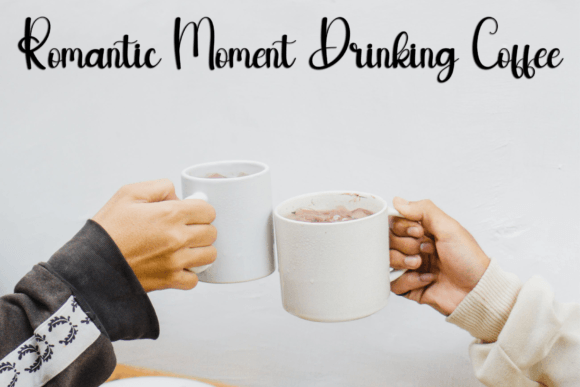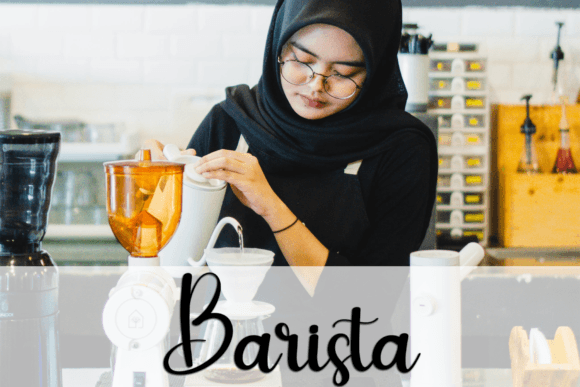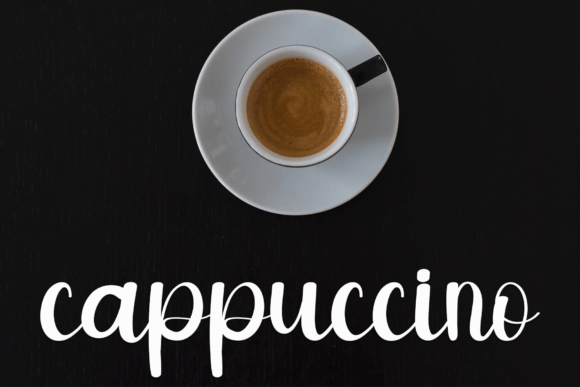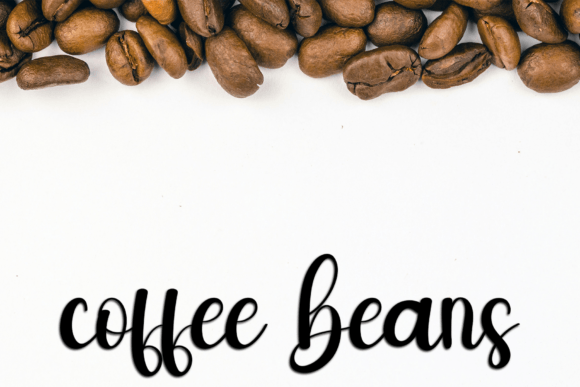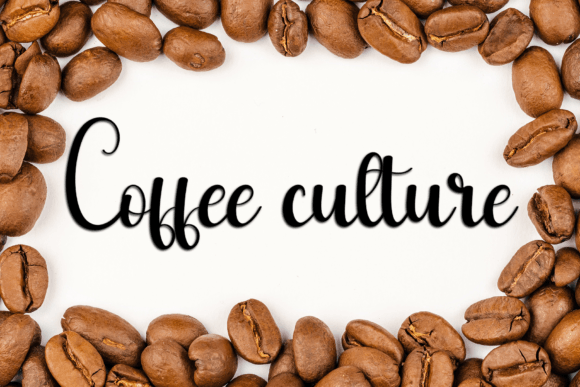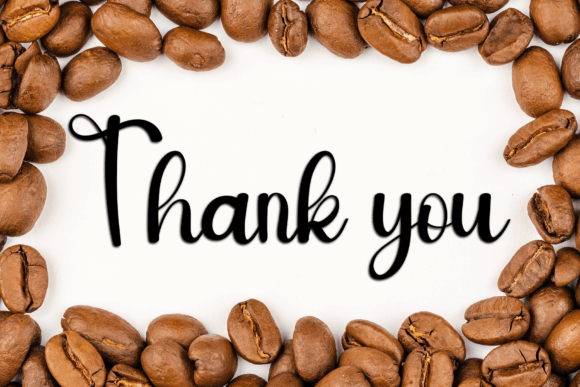
Coffee Font: The Ultimate Guide to Elevating Your Designs
Coffee is a cool, simple, and playful handwritten font that has been making waves in the design world. Incredibly versatile, this font fits a wide pool of designs, elevating them to the highest levels. Add this font to your favorite creative ideas, and notice how it makes them come alive!
What is Coffee Font?
Coffee Font is a modern, handwritten font that exudes a sense of playfulness and simplicity. Its unique charm lies in its effortless, cursive style that instantly adds a touch of personality to any design. Whether you’re a designer, crafty DIY enthusiast, or social media influencer, Coffee Font is an excellent addition to your typography arsenal.
Key Features of Coffee Font
- Playful and Whimsical: Coffee Font boasts a carefree, handwritten style that’s perfect for designs that require a dash of personality.
- Versatile: This font is incredibly adaptable, making it suitable for a wide range of designs, from branding and advertising to packaging and digital media.
- Easy to Read: Despite its playful nature, Coffee Font remains highly legible, ensuring your message is conveyed clearly and effectively.
- Highly Customizable: Coffee Font can be easily paired with other fonts, colors, and design elements to create a unique visual identity.
Use Cases for Coffee Font
Coffee Font’s versatility makes it an excellent choice for various design applications. Here are some inspiring use cases:
- Branding and Logo Design: Use Coffee Font to create a memorable logo or add a personal touch to your brand’s typography.
- Social Media Graphics: Elevate your social media presence with engaging graphics, quotes, and captions featuring Coffee Font.
- Packaging Design: Add a touch of whimsy to your product packaging with Coffee Font, making your brand stand out on store shelves.
- Digital Media: Use Coffee Font in your website headers, blog posts, or email newsletters to inject a dose of personality into your digital content.
Tips for Using Coffee Font Effectively
To get the most out of Coffee Font, follow these expert tips:
- Pair with Contrasting Fonts: Combine Coffee Font with a clean, sans-serif font to create visual interest and hierarchy.
- Experiment with Colors: Play with different color schemes to find the perfect match for your design and brand.
- Use it Sparingly: Balance Coffee Font with other design elements to avoid overwhelming your audience.